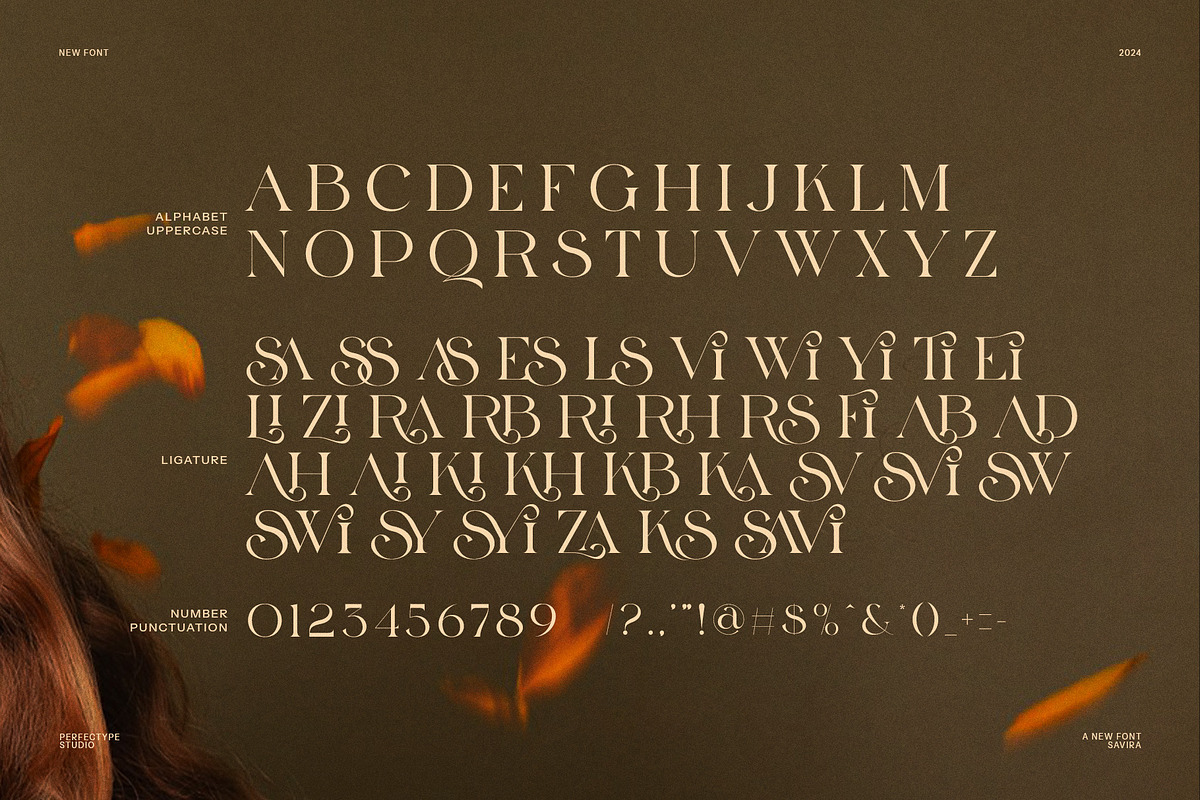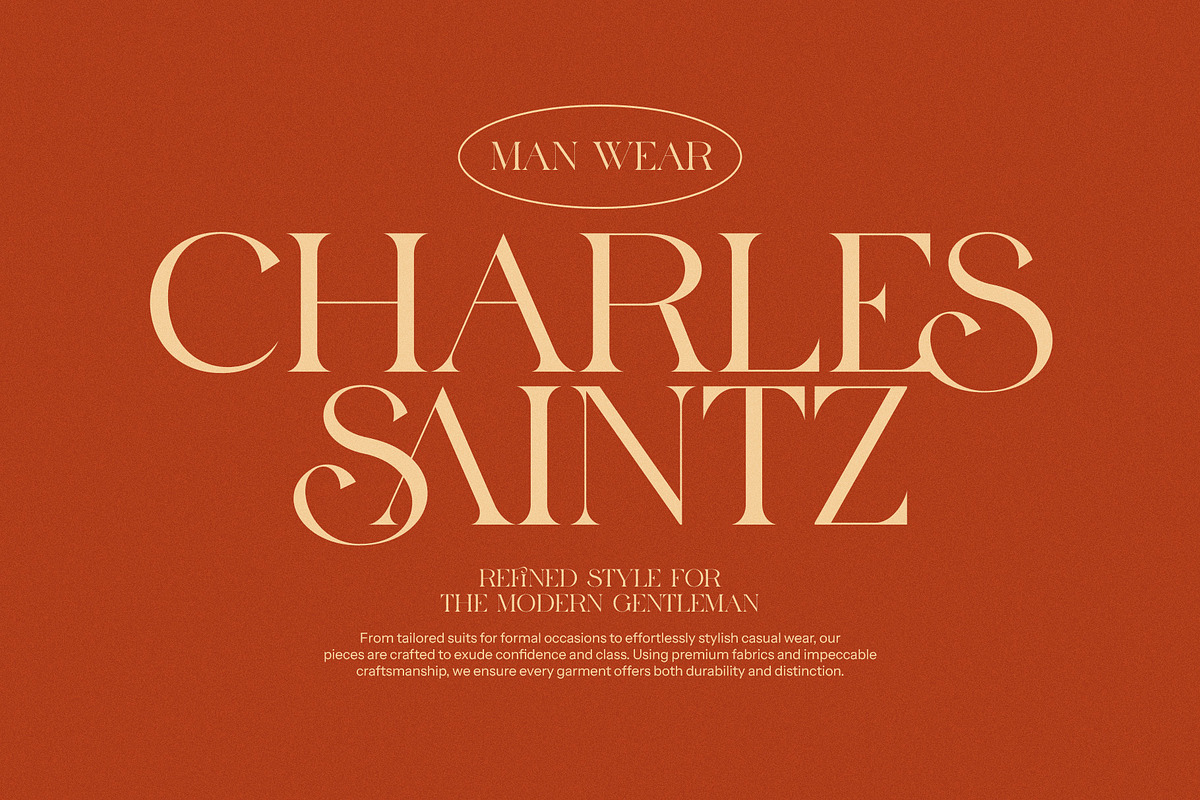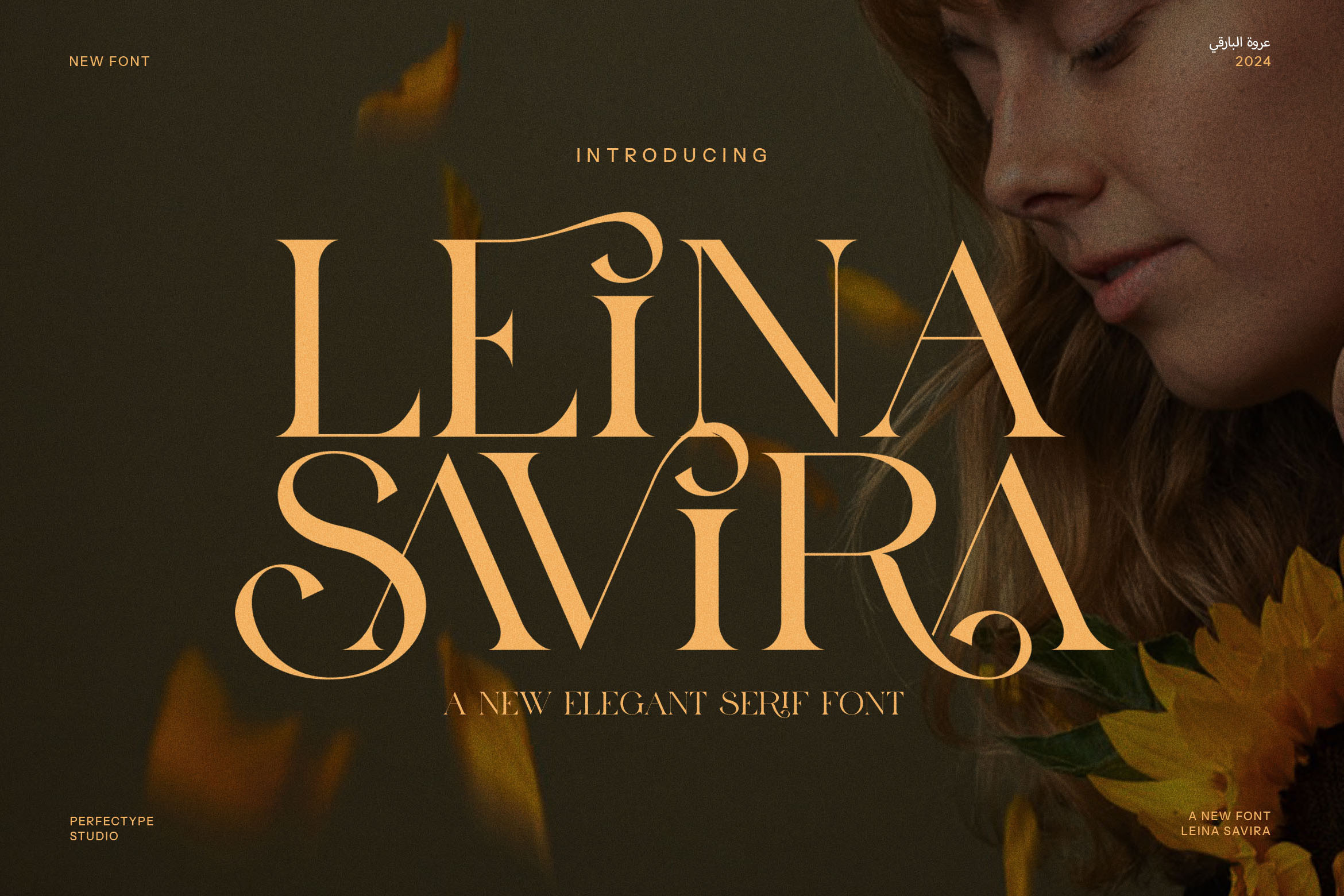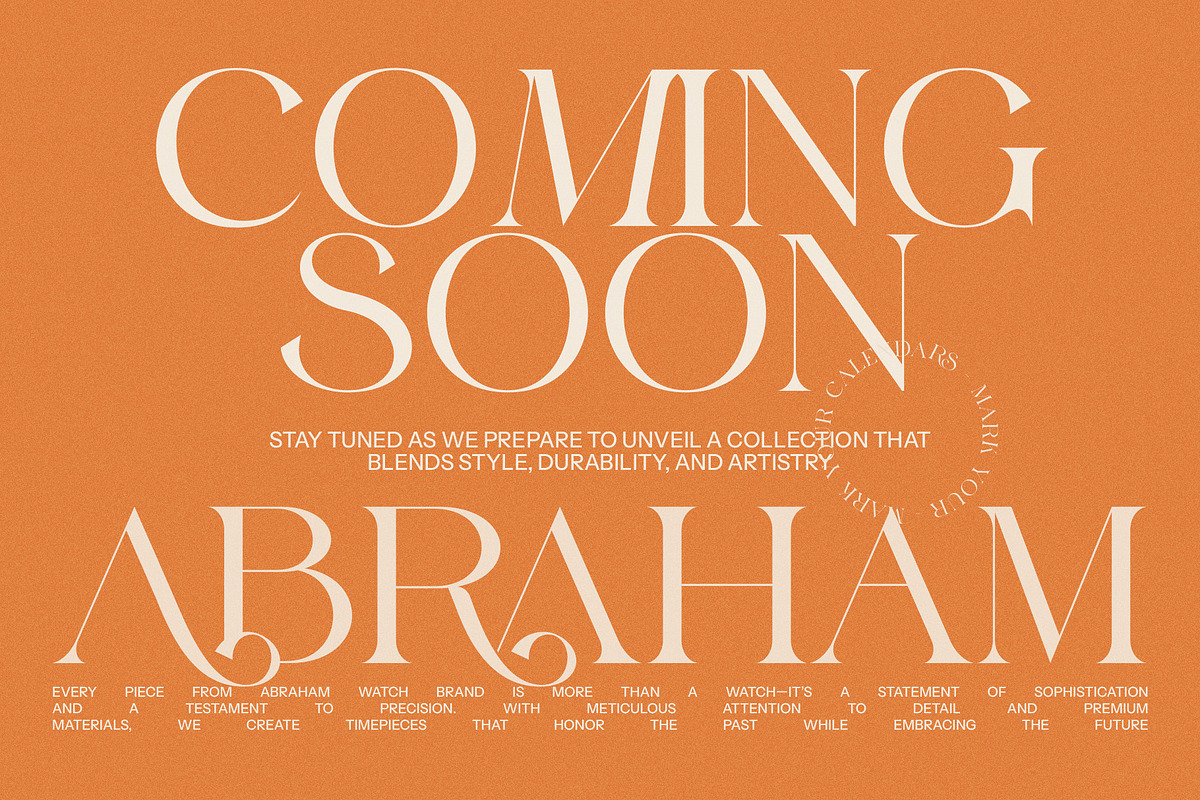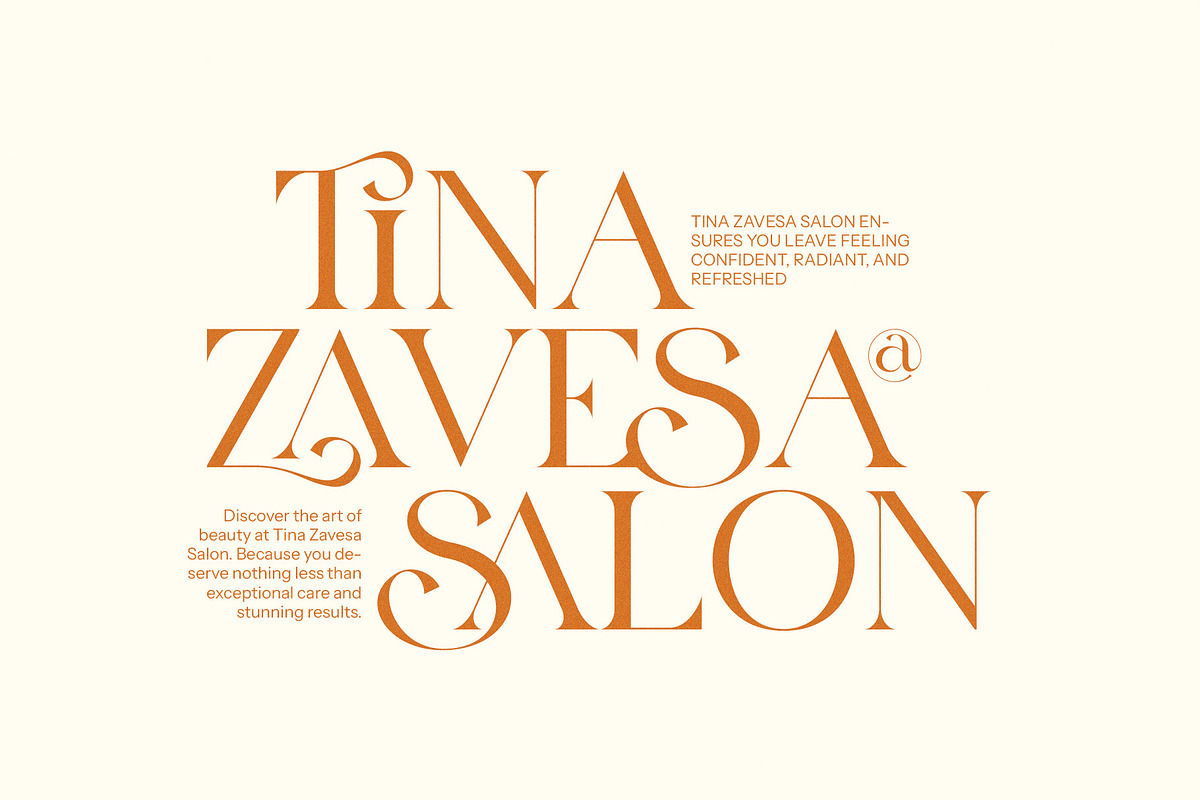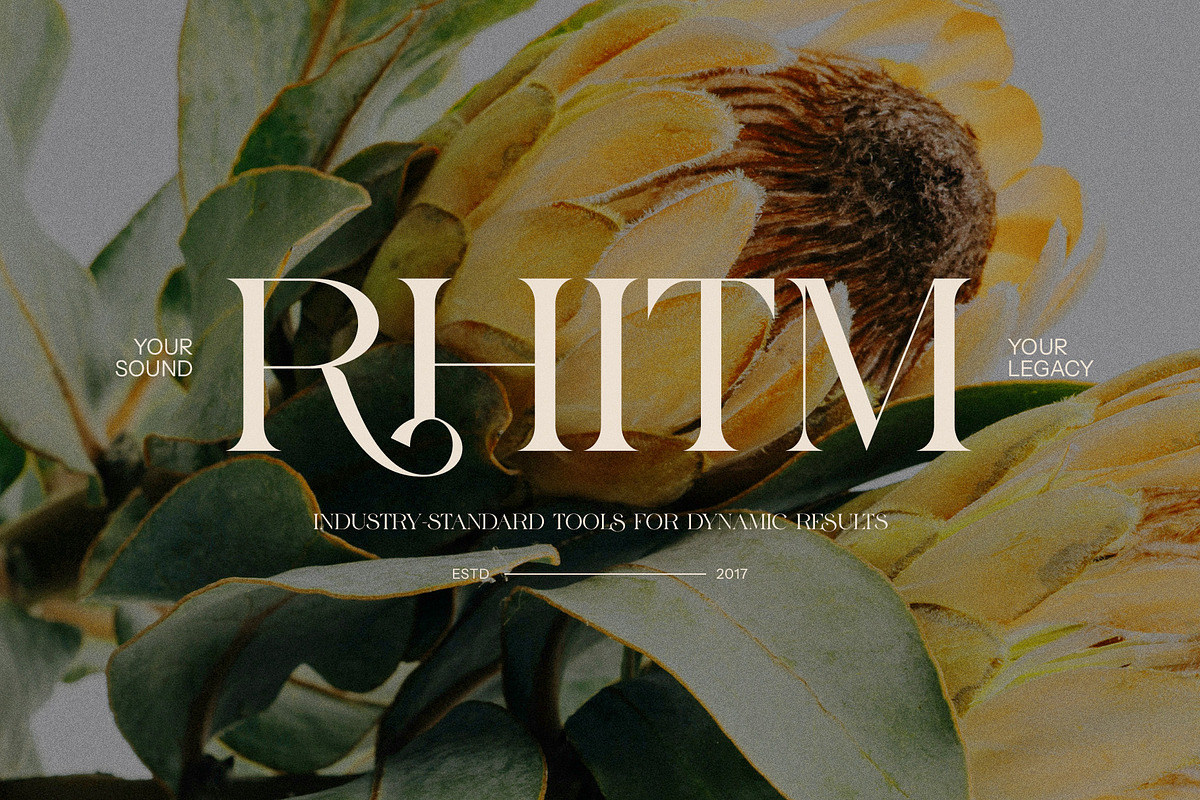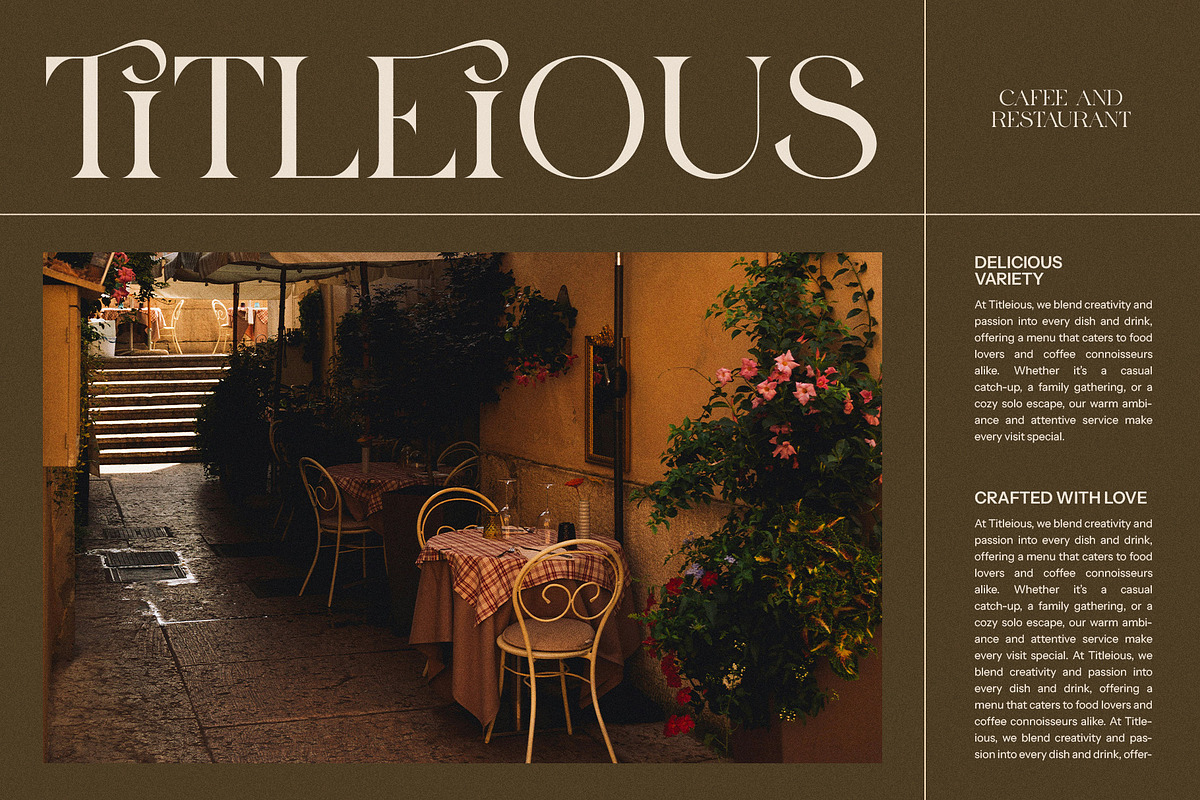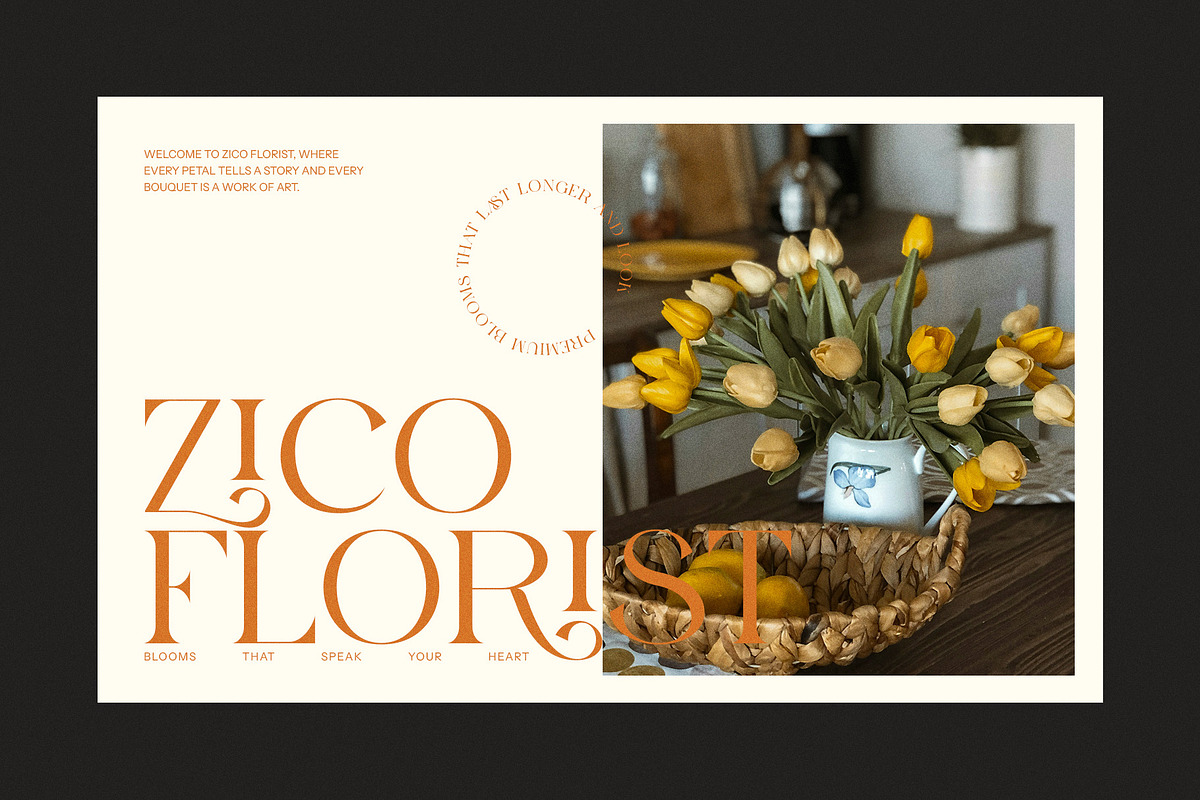
Leina Savira Stylish Serif Font
Leina Savira Stylish Serif Font is a striking, modern serif typeface that combines elegance with personality. With its sophisticated design, this font adds a sense of refinement and charm to any project, making it an excellent choice for high-end branding, logos, and editorial work. Whether you're designing a boutique brand, a stylish food label, or a luxurious product advertisement, Leina Savira brings a unique flair to your visual identity.
The font features beautifully crafted ligatures and alternate letterforms, giving it a distinctive and dynamic quality that sets it apart from conventional serif fonts. These unique design elements allow for endless customization, enabling you to create standout typography that feels both contemporary and timeless. Leina Savira’s carefully balanced proportions and delicate serifs ensure readability without compromising style, making it equally suitable for both headlines and body text.
Perfect for fashion brands, online platforms, magazines, and any creative venture that requires a touch of sophistication, Leina Savira’s versatility shines through. Its clean lines, elegant curves, and modern aesthetic bring an air of luxury and professionalism to any design, while its rich character set offers flexibility for a variety of uses.
Leina Savira Stylish Serif Font is the perfect solution for those seeking a font that blends modernity with classic elegance, elevating your design projects with effortless grace and personality. Make your next creative project stand out with the refined beauty of Leina Savira.